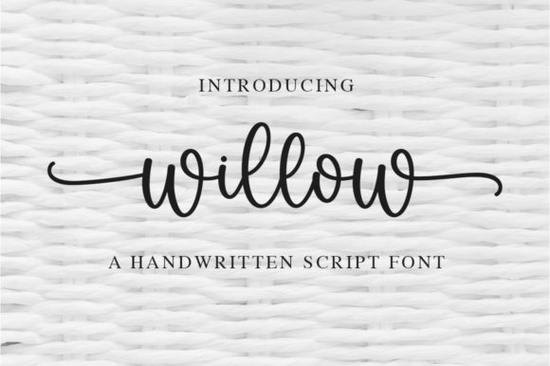
If you're looking for a handwritten font that feels both elegant and natural, Willow Font is worth a closer look. It’s a delicate, flowing script that balances beauty with readability something that's surprisingly hard to find. Whether you're designing wedding invitations, social media graphics, or product packaging, this font brings a soft, refined touch without looking overly ornate.
Handwritten fonts are incredibly popular right now, especially among designers and print-on-demand sellers. But not all of them are easy to work with. Some have uneven letter spacing, others lack the special characters you need for custom projects. Willow solves that with PUA encoding, which means you can access every glyph and swash without complicated workarounds. For anyone who has ever struggled to add a fancy tail or alternate letterform, that’s a huge time-saver.
What makes Willow Font stand out from other script fonts?
Most handwritten fonts fall into one of two categories: they're either too messy to read or too rigid to feel personal. Willow sits right in the sweet spot. The characters are well-balanced and flow naturally from one to the next. It’s not overly flourished, but it has enough personality to make your text feel hand-lettered.
- Elegant but legible – Each letter is carefully drawn so your message stays clear.
- Full swash access – Thanks to PUA encoding, you can easily add decorative tails, alternate letters, and ligatures.
- Works across projects – From branding to blog headers, it adapts without looking out of place.
If you're building a font library for client work, pairing Willow with a bolder script can give you more flexibility. For example, you might combine it with a font like Beach Waves Duo, which has a bouncier, more casual feel. Or use it alongside the structured California Font for a modern, slightly retro look.
What does PUA encoding actually mean?
PUA (Private Use Area) encoding is simply a way to store special characters so that any software can access them. Without PUA, some fonts hide alternate glyphs, swashes, or ornaments behind obscure keyboard shortcuts. With Willow, every swash and alternate letter appears as a selectable character. You can insert them the same way you'd type a regular letter.
- Especially useful for crafting custom logotypes or monograms.
Is Willow Font suitable for wedding and event designs?
Definitely. Delicate scripts are a staple for save-the-dates, invitations, and seating charts. Willow's light, airy strokes look beautiful on cream or white backgrounds. Because it's not too thick, it also prints well on textured paper without bleeding. If you're designing for a client who wants a romantic but not overly frilly style, this font is a safe bet.
For a more dramatic contrast, try layering it over a bold display font like Beach Waves Duo on a poster or banner. The mix of refined and playful can give your design a unique edge.
How many glyphs and swashes does Willow include?
The exact number varies by font version, but Willow typically comes with a full set of uppercase and lowercase letters, numbers, punctuation, plus a generous set of ligatures and swashes. You'll find alternate versions of several letters (especially ‘a’, ‘e’, ‘g’, and ‘y’) so you can vary the look of repeated characters. That's a big plus for logos or quotes where the same letter appears multiple times.
To see the full glyph set, open the font in a character map or your design program’s glyph panel. You can preview every alternate before inserting it.
Practical tip: Start with a single word
If you're new to using script fonts, don't try to design a whole poster at once. Pick one key word from your project and experiment with different swashes and alternates. For example, try writing "Love" with a long tail on the ‘L’ or a loop on the ‘e’. Once you're happy, build the rest of your text around that style. It’s a quick way to create a polished, custom look without spending hours.